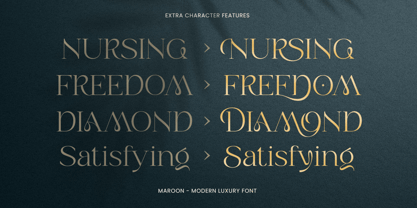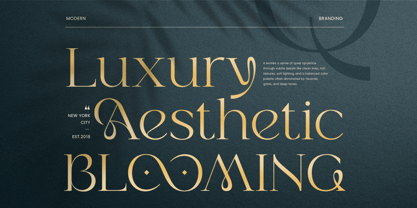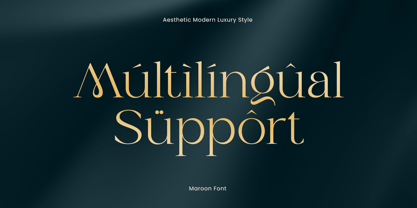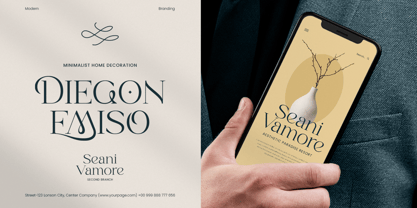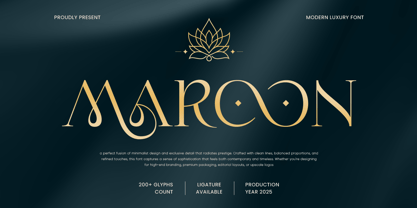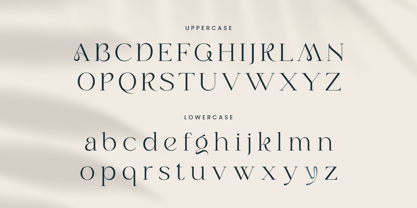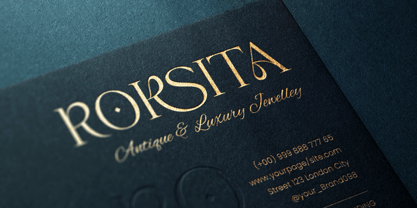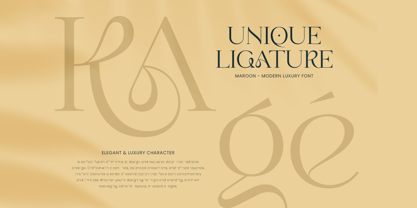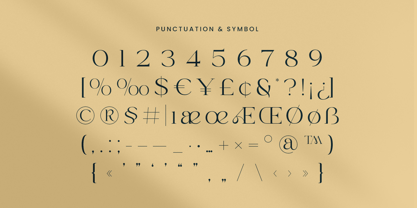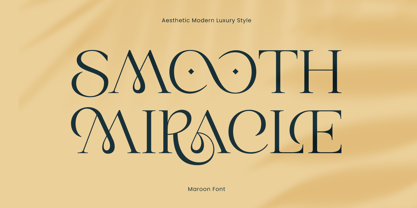
Maroon is a stylish serif font that combines contemporary structure with luxurious details. Its sharp contrasts, graceful curves, and confident character make it perfect for fashion brands, upscale packaging, editorial headlines, wedding invitations, and logos that demand sophistication. Maroon brings both power and beauty to every composition.
Crafted with precision and elegance, Maroon adapts effortlessly to digital and print formats. Whether you’re creating a brand identity, social media campaign, or product label, this font offers a polished aesthetic that enhances your message with modern charm.
Elevate your designs with Maroon—a modern luxury font that speaks with poise and impact.
Maroon Modern Luxury Font Features:
Stylish High-Contrast Serif Design
Perfect for Branding, Editorials, Fashion & Packaging
Punctuation, Numbers, and Symbols
Uppercase and Lowercase
Alternate and Ligature Features
Multilingual Characters available for:
Afrikaans, Albanian, Asu, Basque, Bemba, Bena, Breton, Chiga, Cornish, Dutch, English, Estonian, Filipino, Finnish, Friulian, Galician, German, Gusii, Indonesian, Irish, Italian, Kabuverdianu, Kalenjin, Kinyarwanda, Luo, Luxembourgish, Luyia, Machame, Makhuwa-Meetto, Makonde, Malagasy, Manx, Morisyen, North Ndebele, Nyankole, Oromo, Portuguese, Quechua, Romansh, Rombo, Rundi, Rwa, Samburu, Sango, Sangu, Scottish Gaelic, Sena, Shambala, Shona, Soga, Somali, Spanish, Swahili, Swedish, Swiss.